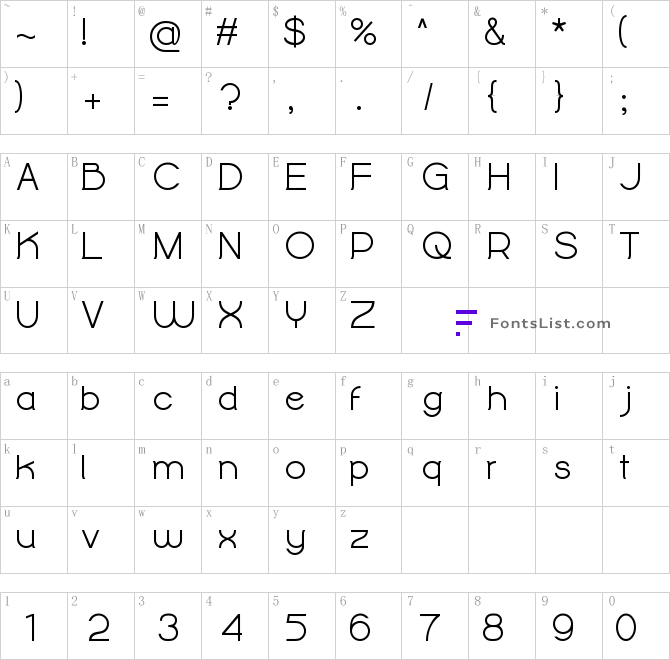
- Font Name:Alighty Nesia Bold
Alighty-Nesia-Bold.ttf is a very beautiful artistic font, Alighty-Nesia-Bold.ttf is widely used in the design and printing of various books and pictures,Alighty-Nesia-Bold.ttf has a strong visual impact,Alighty-Nesia-Bold.ttf is a commonly used font in newspapers, magazines and books, and is used in posters, e-commerce Poster design, store design, logo design, font design and other fields.Alighty-Nesia-Bold.